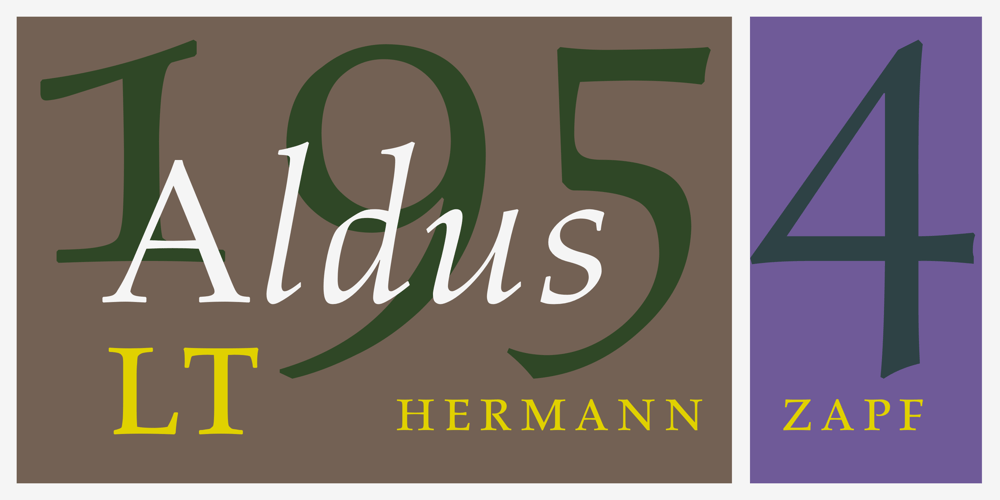
Aldus Font Family was designed by Hermann Zapf and published by Linotype. Aldus contains 2 styles and family package options. Aldus was designed by Hermann Zapf and appeared with the font foundry D. Stempel AG in Frankfurt am Main in 1954. Zapf named this font after the famous Venetian printer Aldus Manutius, whose work is among the most important of the Renaissance period as well as Zapf’s inspiration for Aldus. Linotype Aldus was introduced by Linotype Library as a text font lighter than Palatino. Zapf’s goal with his Palatino and Aldus was to create a new form of Old Face typeface. This font gives text the feeling of elegance which was typical of the Renaissance.